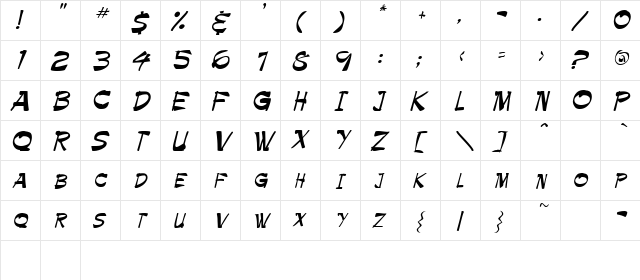
TRINNETTE Regular
Design Context for TRINNETTE Typeface
TRINNETTE is a composed and adaptable typeface that performs quietly and consistently across a wide range of design contexts.